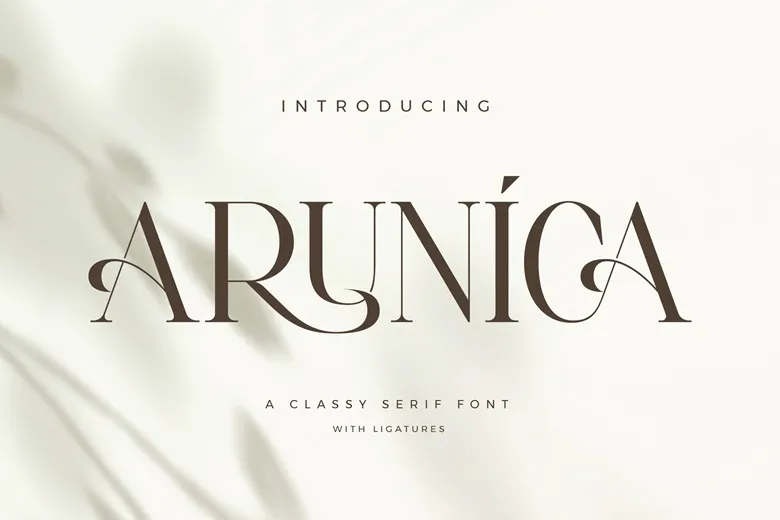
Arunica Font
Arunica is a classy serif font with elegant looks, derived from well-known simple icon ideal for the goal of creating templates, flyers, videos, ads, branding, logo, etc.